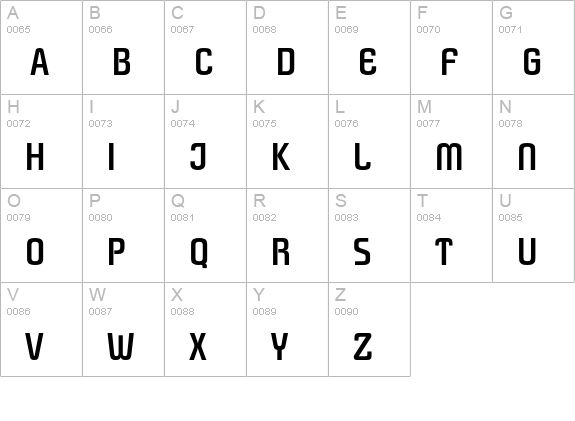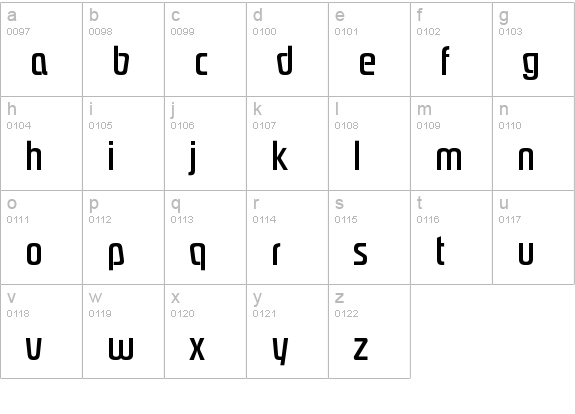
PasadenaEF-Medium is a balanced, medium-weight variant in the PasadenaEF typeface family \xE2\x80\x94 well suited to sub-headlines, navigation, and balanced editorial work.
PasadenaEF-Medium: A Versatile and Elegant Font for Your Creative Projects Introducing PasadenaEF-Medium, a font that effortlessly combines sophistication with versatility. This font is the perfect choice for designers, artists, and creatives who seek a balance between professionalism and creativity. With its medium weight, PasadenaEF-Medium strikes the perfect balance between boldness and subtlety, making it suitable for a wide range of projects. Whether you are working on branding, logo design, web design, or print materials, this font will elevate your work to new heights. The refined letterforms of PasadenaEF-Medium exude elegance and class, making it a timeless choice for any project. Its clean lines and balanced proportions ensure legibility without compromising on style. This font is guaranteed to make a lasting impression on your audience, leaving them captivated by your design. One of the greatest advantages of PasadenaEF-Medium is that it is freely available to download at FontsMarket.com. This means that you can access this exceptional font without any financial constraints. Say goodbye to expensive font licenses and hello to creative freedom. Whether you are a professional designer or a hobbyist, PasadenaEF-Medium is a font that will enhance your creative endeavors. Its versatility allows it to adapt to various design styles and contexts, making it a valuable asset in your font collection. So why wait? Discover the boundless possibilities that PasadenaEF-Medium has to offer. Download this elegant and versatile font for free at FontsMarket.com and elevate your designs to new levels of sophistication and professionalism.